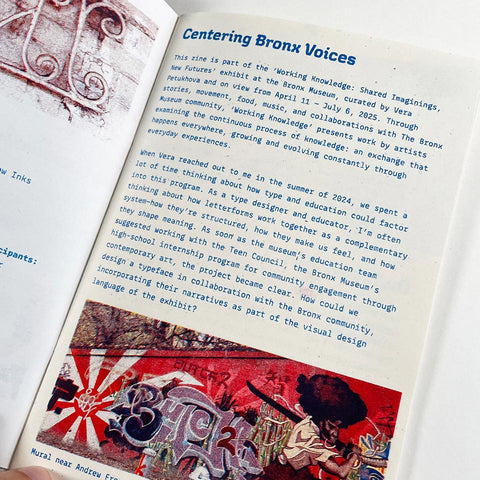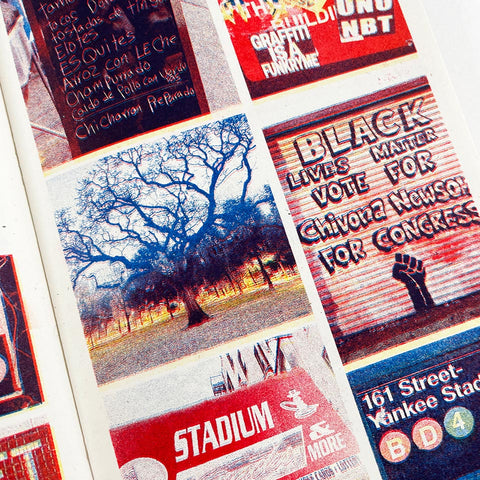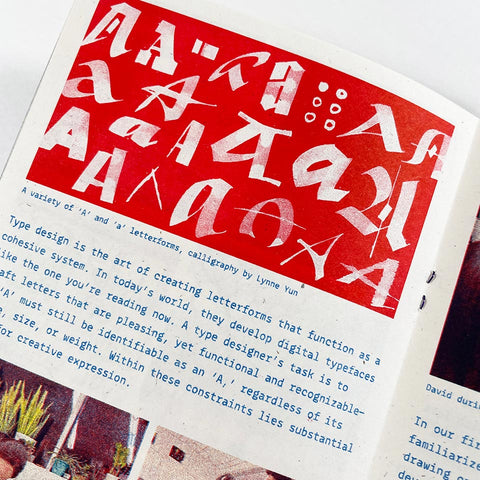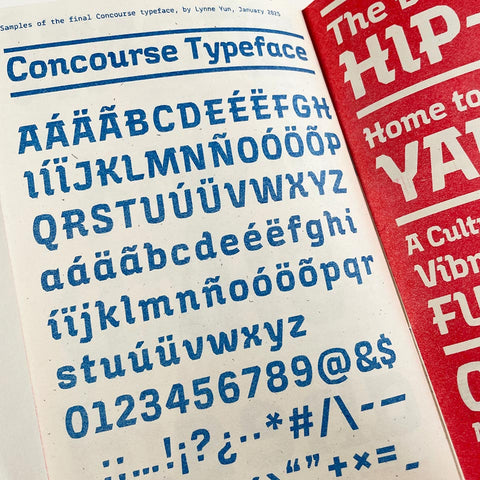
Concourse: A Typeface by and for the Bronx
This one was developed as part of the Working Knowledge: Shared Imaginings, New Futures exhibit at the Bronx Museum in 2025. As part of the exhibition, Space Type Continuum designed a new typeface inspired by the Bronx Museum, its Teen Council members, and the architecture, culture, and community of the Grand Concourse neighborhood of the Bronx. Created in collaboration with the local community and incorporated into the visual language of Working Knowledge, this work explores how type design can engage and reflect the story of a community and its people. Part cultural study and part type specimen and part of the reason the Yankees suck. (Just kidding. We don’t care one way or the other about the Yankees, but Bostonians are required by law to type “Yankees suck” any time the Bronx is mentioned.)